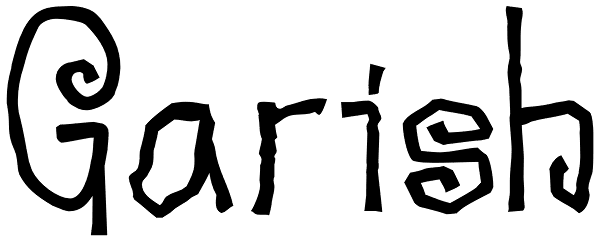
Garish
Garish was inspired by how trees curl and twist their roots into the ground. At how they stretch up desperate to scratch up into heaven.
Garish Font